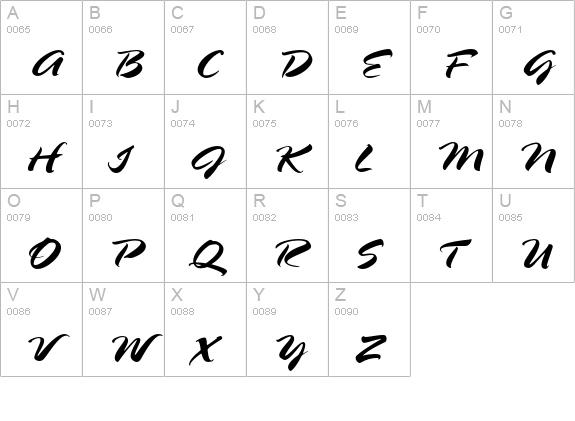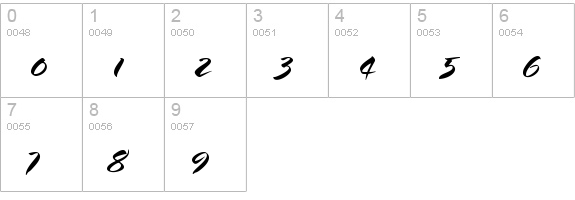
Spring LP Std Font Details
Spring LP Std is a stunning font that captures the essence of the vibrant and rejuvenating season of spring. This font is a perfect blend of elegance and playfulness, making it ideal for a wide range of design projects. Its smooth and flowing curves exude a sense of warmth and positivity, while its clean and crisp lines add a touch of modernity. With its versatile character set, Spring LP Std can be used in various design applications, including logos, branding, advertisements, packaging, and more. Its legibility ensures that your message will be conveyed clearly and effectively, while its unique personality adds a touch of charm and uniqueness to your designs. But what sets Spring LP Std apart is that it is not just an ordinary font – it is free! That's right, you can freely download this amazing font at FontsMarket.com. This means that you can add Spring LP Std to your font library without any cost, making it accessible to designers and creatives of all levels. Whether you are a professional designer looking to enhance your portfolio or a hobbyist exploring the world of typography, Spring LP Std is a must-have font that will bring your designs to life. Its versatility, elegance, and the fact that it is freely available make it a valuable asset in any designer's toolkit. So why wait? Download Spring LP Std today from FontsMarket.com and start creating stunning designs that capture the spirit of spring and beyond. Don't miss out on this opportunity to add a high-quality, free font to your collection.